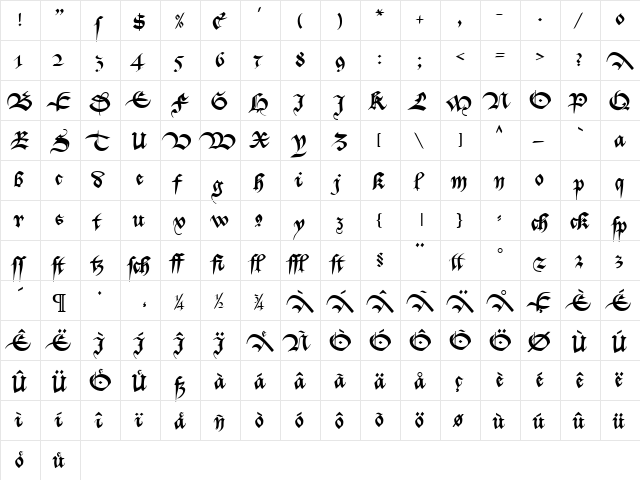
MA Bastarda1 Normal
Design Context for MA Bastarda1 Typeface
MA Bastarda1 is a composed and adaptable typeface that performs quietly and consistently across a wide range of design contexts.